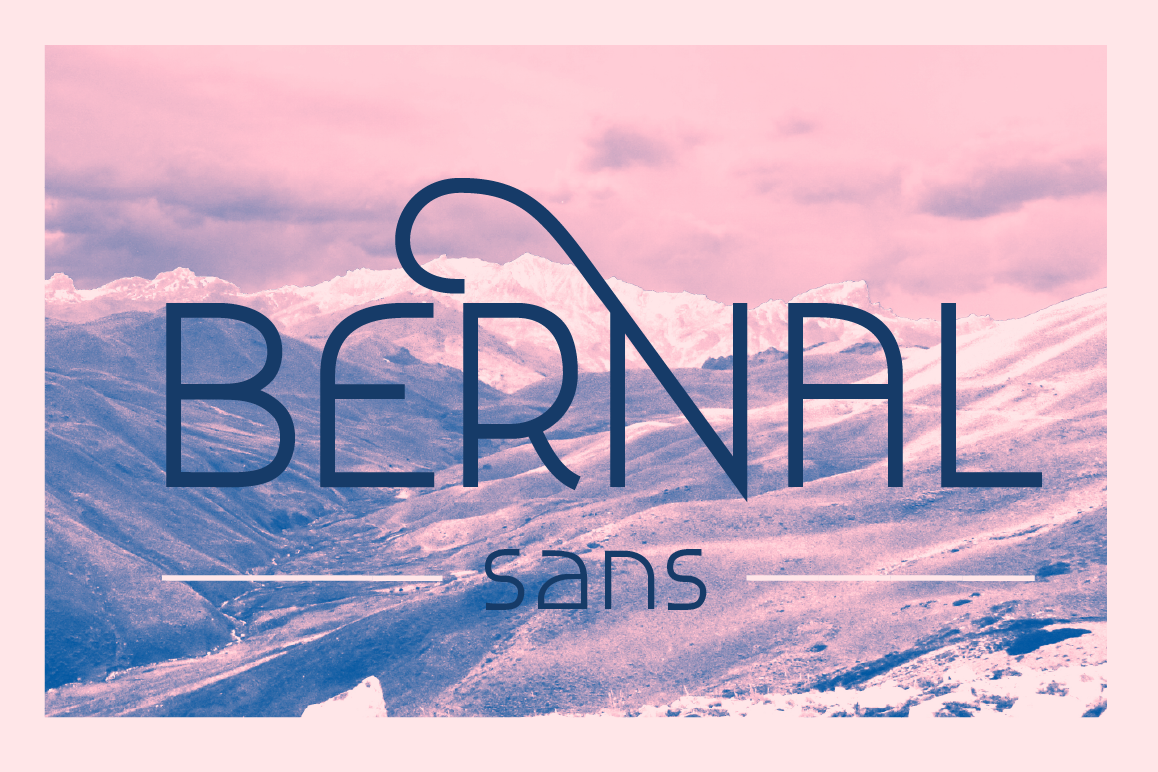
Bernal Sans
Bernal Sans Alternate
Bernal Sans
Bernal is a display modern sans-serif font, with a delicate and romantic touch. It includes a Regular version, and an Alternate one, with adds up alternative capitals, symbols, lower case numbers and a decorative miscellaneous set. Both versions are in .ttf and .otf formats.